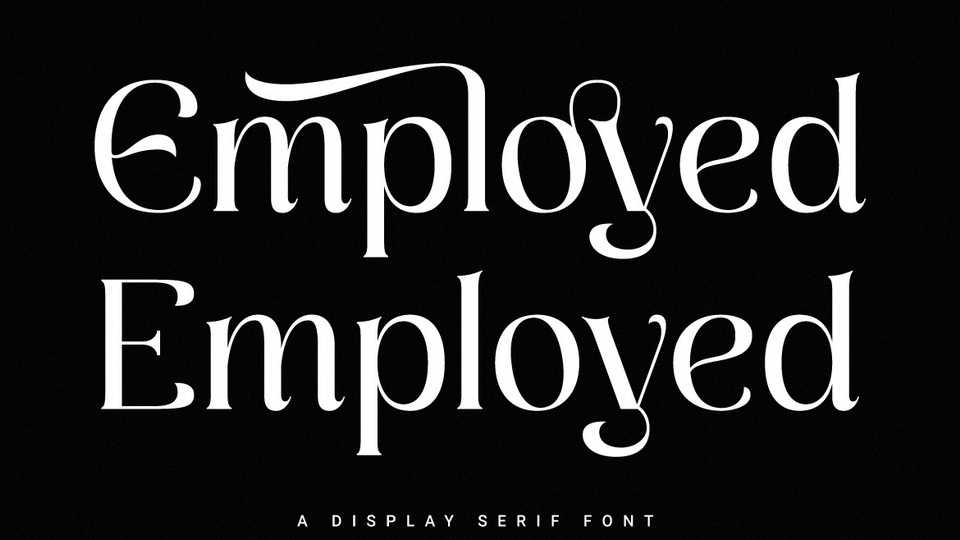
Download Employed font, a modern serif display typeface with a classic appearance. Employed is a clean and eye-catching typeface expected to make your project more impressive.